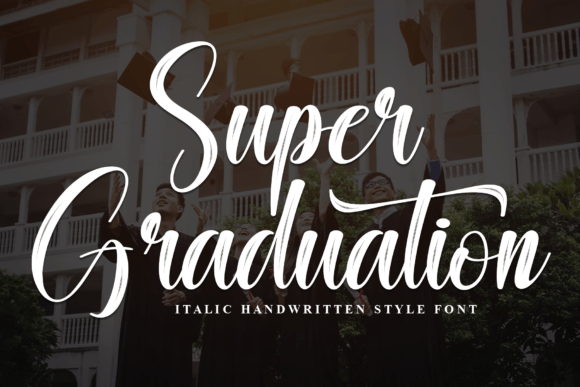
Introducing Super Graduation Font: Elevate Your Designs with Elegance and Whimsy
In the world of typography, fonts play a crucial role in conveying the tone and personality of a brand or design. Among the numerous fonts available, Super Graduation stands out as a modern handwritten font that perfectly balances elegance with a touch of whimsy. Its fluid, organic strokes and refined letterforms make it an ideal choice for upscale packaging, branding, and editorial designs. In this article, we’ll explore the features and benefits of Super Graduation, and how it can bring a bespoke, artisanal feel to any project.
The Unique Characteristics of Super Graduation Font
Super Graduation is a carefully crafted font that showcases a distinctive blend of elegance and playfulness. Its handwritten nature gives it a personal and approachable feel, making it perfect for designs that require a touch of sophistication and warmth. The font’s fluid strokes and refined letterforms are meticulously designed to create a sense of movement and fluidity, adding a dynamic touch to any design.
One of the standout features of Super Graduation is its ability to convey a sense of luxury and refinement. The font’s elegant letterforms and precise lines make it ideal for high-end branding, packaging, and editorial designs. Whether you’re creating a logo, brochure, or website, Super Graduation can help you establish a strong visual identity that exudes sophistication and style.
The Benefits of Using Super Graduation in Your Designs
Super Graduation offers a range of benefits that make it an excellent choice for designers and brands. Here are some of the advantages of using this versatile font:
- Elegance and Sophistication: Super Graduation’s refined letterforms and fluid strokes give it an air of elegance and sophistication, making it perfect for high-end designs.
- Whimsy and Playfulness: The font’s handwritten nature and subtle imperfections add a touch of whimsy and playfulness, making it ideal for designs that require a personal touch.
- Versatility: Super Graduation is a highly versatile font that can be used in a wide range of designs, from packaging and branding to editorial and digital designs.
- Readability: The font’s clear and precise lines ensure excellent readability, making it suitable for body text and headlines.
How to Use Super Graduation in Your Designs
Super Graduation is a highly versatile font that can be used in a variety of design applications. Here are some ideas on how to incorporate this beautiful font into your designs:
- Branding and Logo Design: Use Super Graduation to create a sophisticated and elegant logo that reflects your brand’s personality.
- Packaging Design: Add a touch of luxury and refinement to your packaging designs with Super Graduation’s elegant letterforms and fluid strokes.
- Editorial Design: Use Super Graduation in editorial designs, such as magazines, brochures, and books, to add a touch of elegance and sophistication.
- Digital Design: Super Graduation can also be used in digital designs, such as websites, social media graphics, and email marketing campaigns.
Tips for Pairing Super Graduation with Other Fonts
Pairing Super Graduation with other fonts can create a unique and visually appealing typography combination. Here are some tips for pairing Super Graduation with other fonts:
- Contrast with Sans-Serif Fonts: Pair Super Graduation with sans-serif fonts, such as Arial or Helvetica, to create a striking contrast between elegance and simplicity.
- Combine with Script Fonts: Combine Super Graduation with other script fonts to create a beautiful and elegant typography combination.
- Use with Serif Fonts: Pair Super Graduation with serif fonts, such as Times New Roman or Georgia, to create a sophisticated and classic typography combination.
Super Graduation is a modern handwritten font that offers a unique blend of elegance and whimsy. Its fluid, organic strokes and refined letterforms make it an ideal choice for upscale packaging, branding, and editorial designs. With its versatility, readability, and sophisticated feel, Super Graduation can bring a bespoke, artisanal feel to any project. Whether you’re a designer or a brand looking to establish a strong visual identity, Super Graduation is an excellent choice for elevating your designs to the next level.
FAQs About Super Graduation Font
- What is Super Graduation font? Super Graduation is a modern handwritten font that combines elegance with a touch of whimsy.
- What is Super Graduation font used for? Super Graduation is ideal for upscale packaging, branding, and editorial designs.